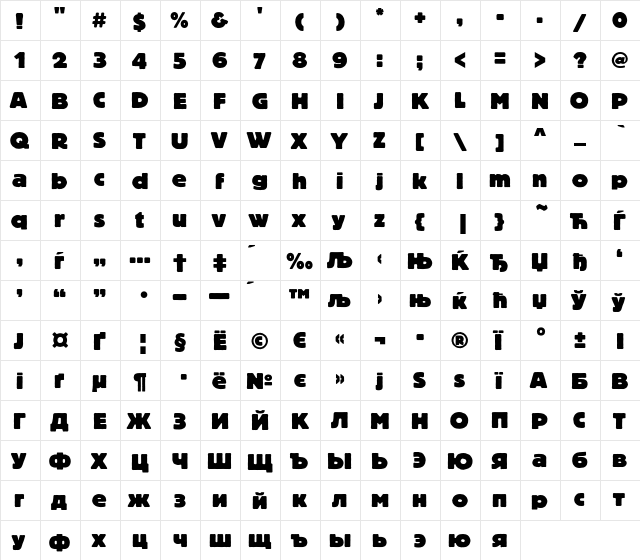
BlocHeavyC Regular
Design Context for BlocHeavyC Typeface
BlocHeavyC takes a measured approach to typography — its balanced proportions and neutral character make it a reliable workhorse for both digital and print work.